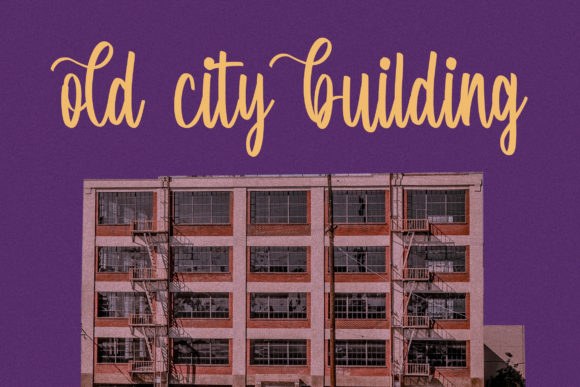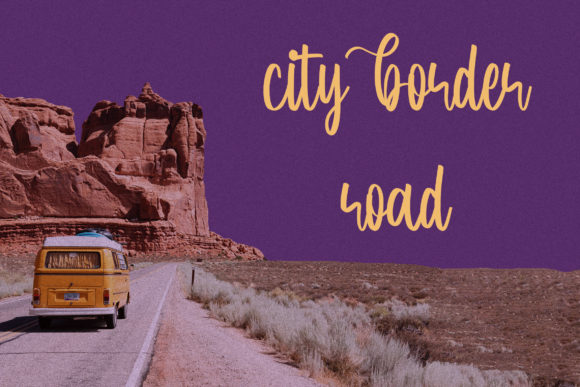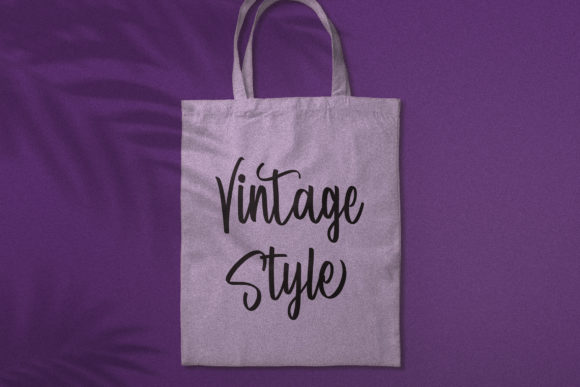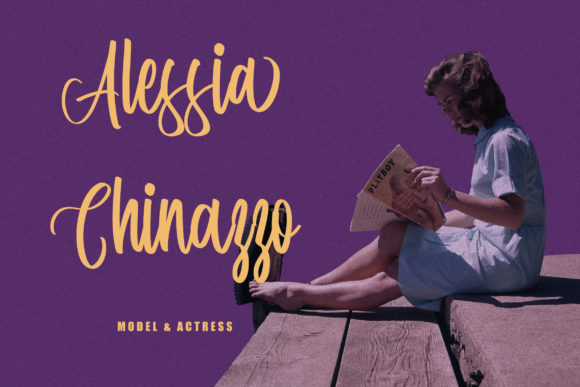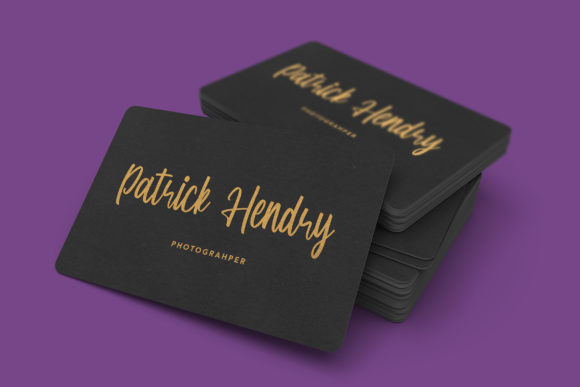
The District Font: A Designer’s New Best Friend
I’ll never forget the time I was working on a wedding invitation design project, and my client asked for a font that was both elegant and modern. I scoured the internet, tried out dozens of fonts, but nothing seemed quite right. That was until I stumbled upon the District font. 💕
District is a beautiful and flowing script font that has become a staple in my design toolkit. Its versatile and modern look makes it perfect for logos, branding, invitations, stationery, wedding designs, social media posts, and much more! In this article, I’ll share my honest review of the District font, provide a practical guide on how to use it, and explore similar fonts and alternatives.
- 💫 Beautiful, flowing script that looks elegant and modern
- ✅ Highly versatile and can be used for a wide range of design projects
- 🎉 Easy to read and understand, even at smaller font sizes
- 🔥 Supports OpenType features, glyphs, and stylistic alternates
Small Quirks and Limitations 🤔
- ⚠️ Some users may find the font a bit too ornate or over-the-top for certain projects
- 🤔 Limited availability of certain characters or glyphs in certain platforms or software
The Story Behind District Font
The District font was designed by a team of typographers who wanted to create a beautiful, modern script font that would inspire creativity and elegance. With its flowing lines and versatile style, District font has become a popular choice among designers and crafters.
| Font Name | District Font |
| Author | Arendxstudio |
Q: What type of projects is District font best suited for?
A: District font is highly versatile and can be used for a wide range of projects, including logos, branding, invitations, stationery, wedding designs, social media posts, and more!
Q: Does District font support OpenType features and glyphs?
A: Yes, District font supports OpenType features and glyphs, making it easy to add visual interest and personality to your designs.
Q: Is District font easy to read?
A: Yes, District font is designed to be easy to read and understand, even at smaller font sizes.